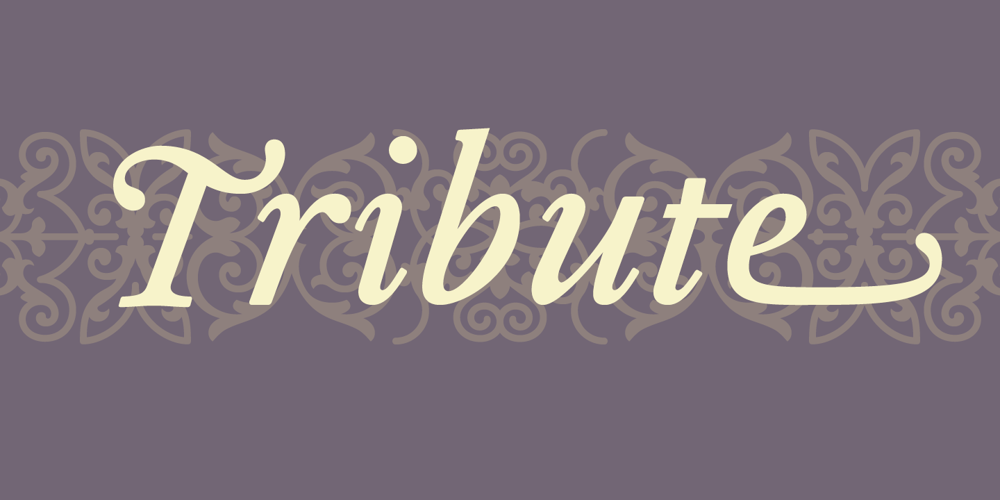
Tribute Font Family was designed by Frank Heine and published by Emigre. Tribute contains 7 styles and family package options. Tribute is a typeface by German type designer Frank Heine. This is Heine’s fourth release with Emigre Fonts. Remedy, released in 1991, was a major commercial success. Its curlicue, free-style, comic appearance, provided a perfect counter to Emigre’s then primarily modular type designs. Dalliance, a classic roman and script combo based on handwriting from a photocopy of a 1799 battle map, was released in 2002 and became an instant classic. With Tribute, Heine followed a path similar to that of Dalliance by using a single printed source (a photo copy of a reprint of a type specimen printed around 1565) as its model. The specimen in question was set in a typeface cut in the 1560’s by the French punchcutter François Guyot. Not nearly as influential as his elders, such as Garamond or Griffo, Guyot’s unusual treatment of certain characters and overall idiosyncratic approach appealed to Heine’s aesthetic sensibilities. Also, to design a font based on a Renaissance Antiqua had been a long held desire for Heine; “I am particularly attracted to its archaic feel, especially with settings in smaller design sizes. It is rougher with less filigree than the types of the following centuries thus exhibiting much cruder craftsmanship of the early printing processes.” By using a third generation copy as a model, which did not reveal much detail, allowed Heine enough room for individual decisions resulting in a decidedly contemporary interpretation while maintaining a link to the past. The result has been described by a fellow type designer as follows: “It is evident that Frank Heine’s ‘Tribute’ possesses an element of ‘type caricature’ in its drawing, but this fact doesn’t relegate it to that one category. Heine has really gone beyond parody, well into an area of personal exploration. He has challenged many traditional assumptions that we ‘connoisseurs’ of hand-cut type have maintained in our attitude toward the historical accuracy sought and loved and expected in ‘revivals.’ The result is a unique combination of caricature, homage, alchemy, and fanciful reinterpretation. Tribute, I think, recalls Guyot’s native French-learned style, primarily as a point of departure for an original – albeit implausible – work of historical fiction, with merits and faults of its own.”